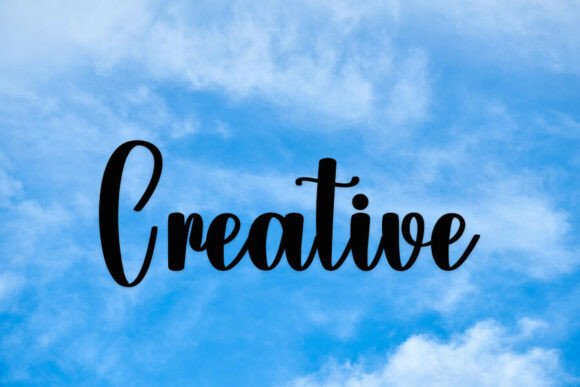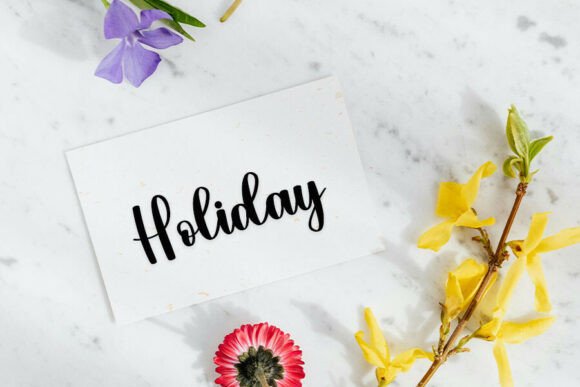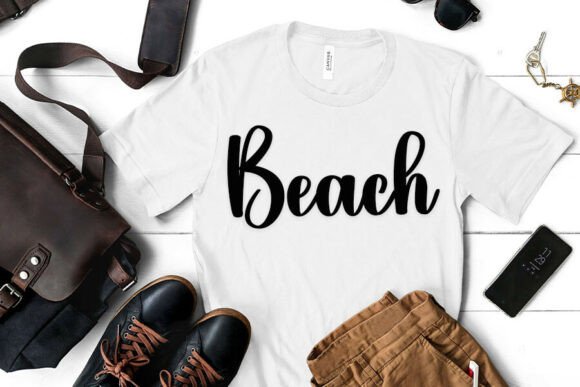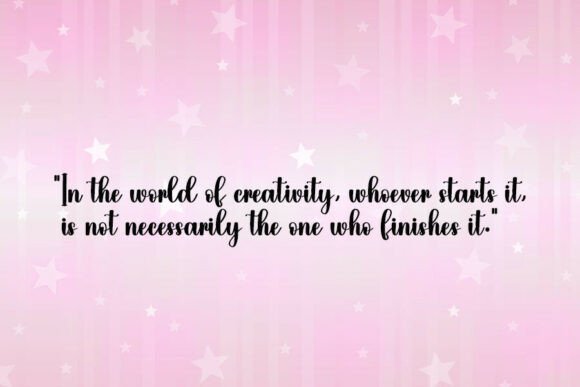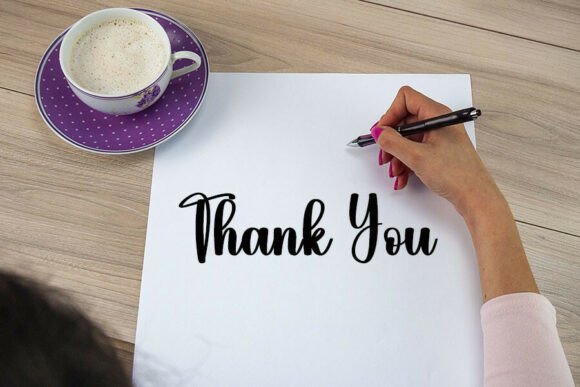
Have you ever been browsing through design inspiration boards and stumbled upon a beautifully crafted logo or invitation that made you stop and take a second look? The soft, flowing curves and elegant touch of a handwritten font can instantly elevate a design and capture the viewer’s attention. That’s exactly what the Floating Font is designed to do.
This sweet and cursive handwritten font is perfect for adding a joyful and romantic touch to your projects. Whether you’re working on a branding campaign, designing a wedding invitation, or creating a lookbook for a fashion brand, the Floating Font is sure to make your design stand out. Its versatility and elegance make it a valuable addition to any designer’s toolkit.
Floating Font Key Features
- Unique Characteristic: The Floating Font is a variable font that can be manipulated to create multiple styles and weights, making it highly versatile for designers and typographers.
- Resolution: The font is designed to work at various resolutions, including low-resolution displays, ensuring it remains legible and clear even on smaller screens.
- Unique Feature: The Floating Font’s variable design allows for continuous interpolation between styles and weights, enabling designers to create subtle and nuanced typography that enhances the overall visual experience.
Floating Font Review
Overall, I’m impressed with the creativity and uniqueness of Floating Font. ✨ It’s a great choice for designers looking to add some visual interest to their projects.
Floating Font is commonly used in:
- Advertising and marketing materials.
- Graphic design and illustration.
Alternatives to Floating Font